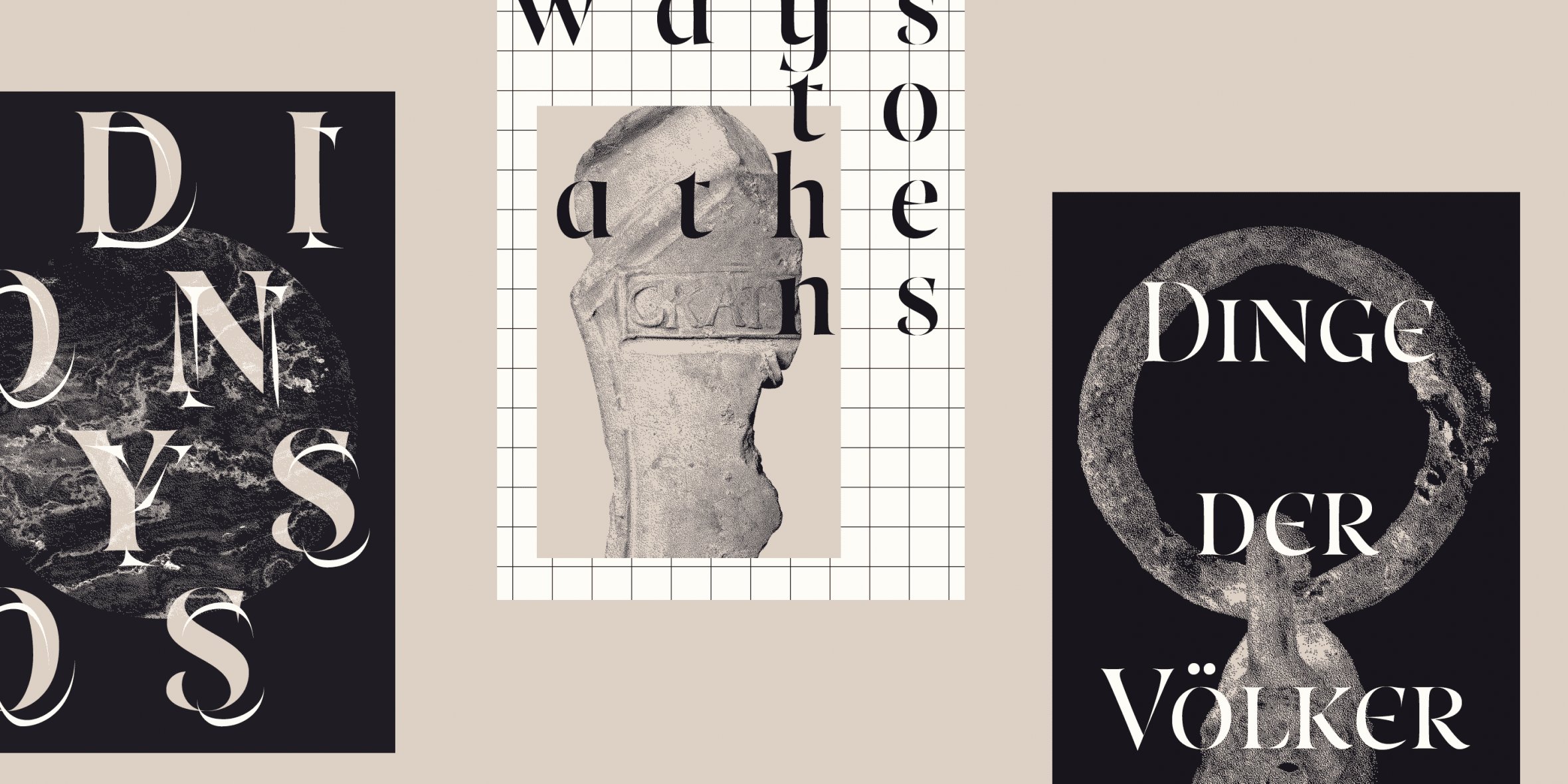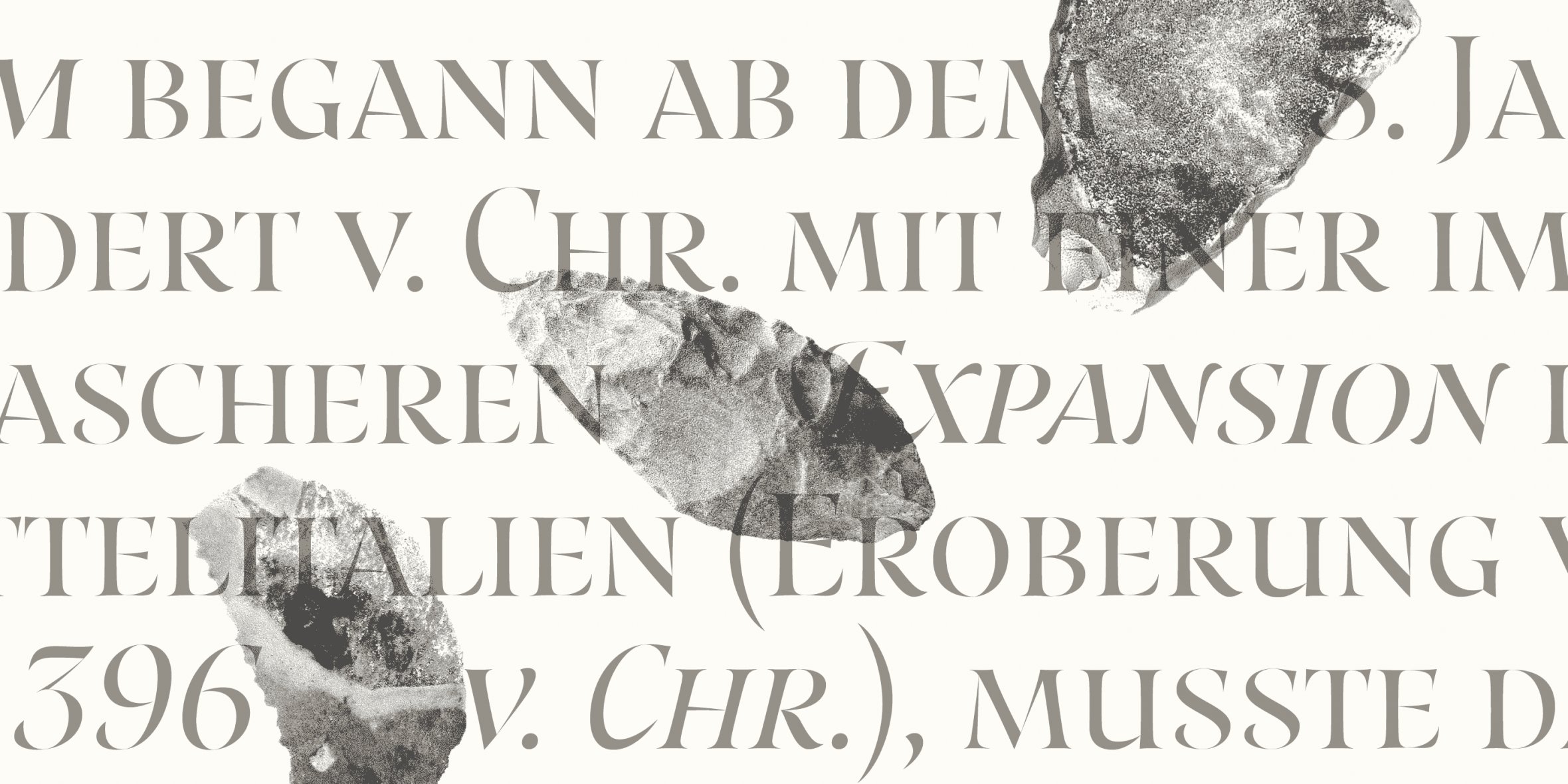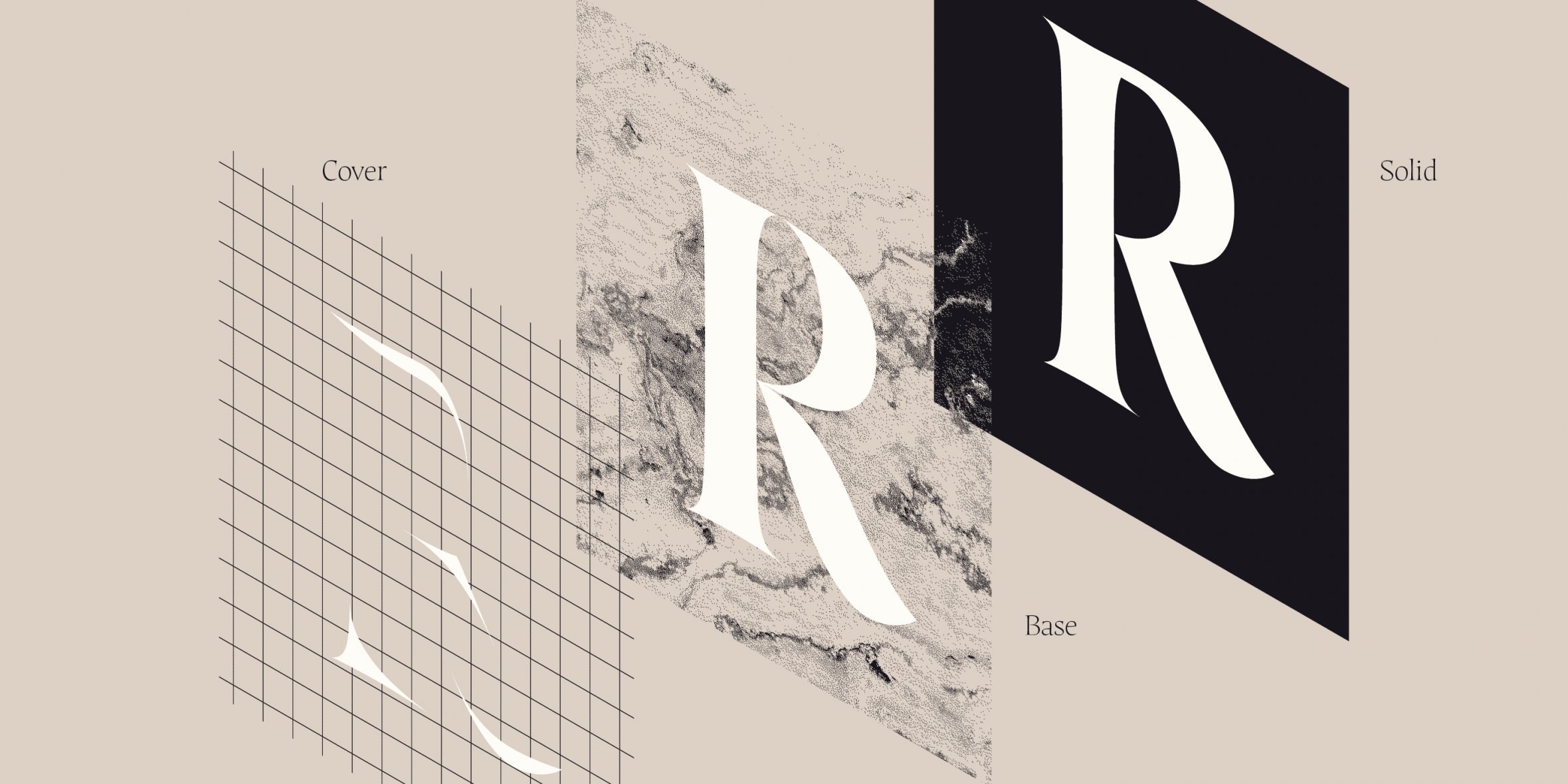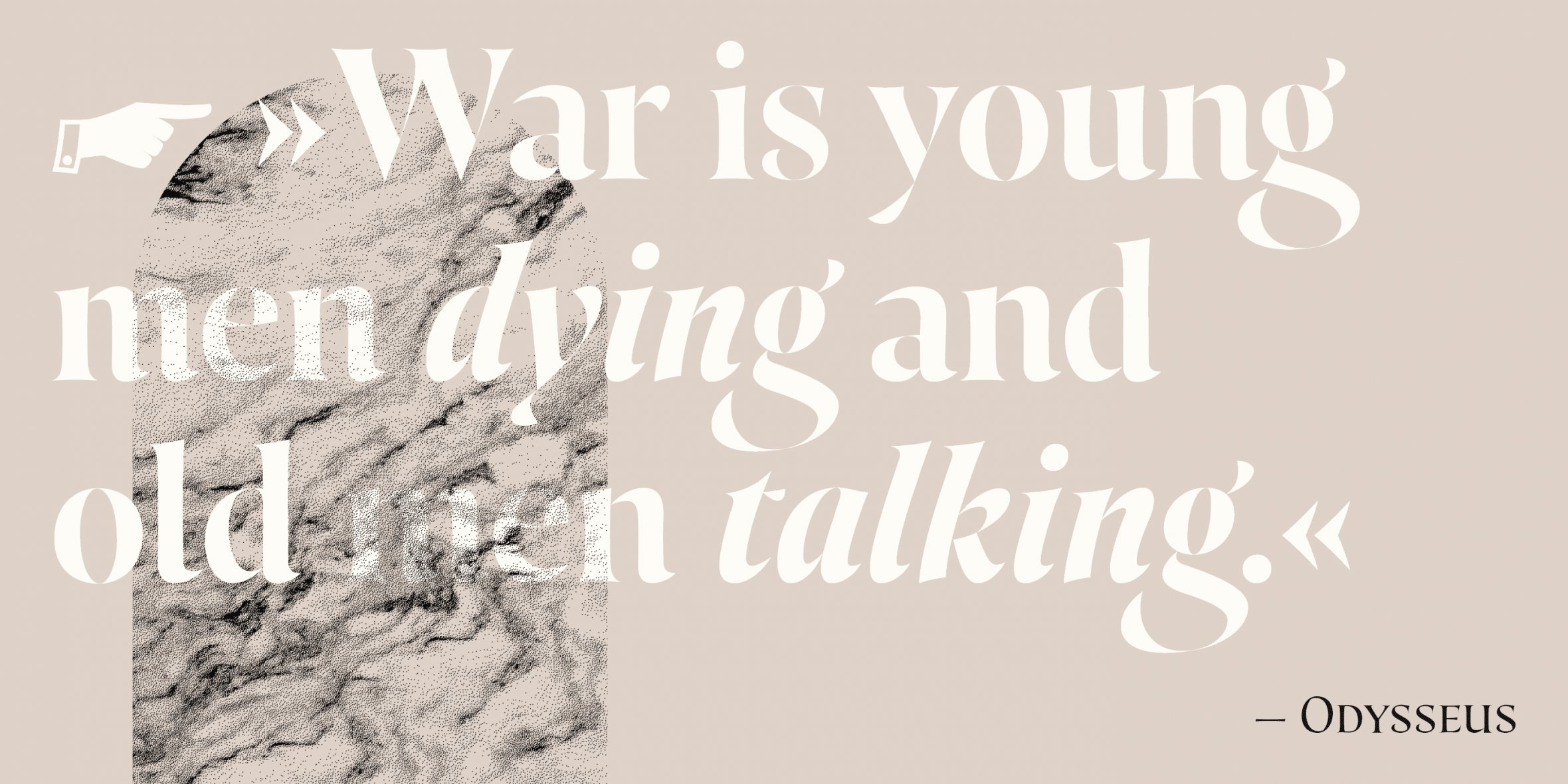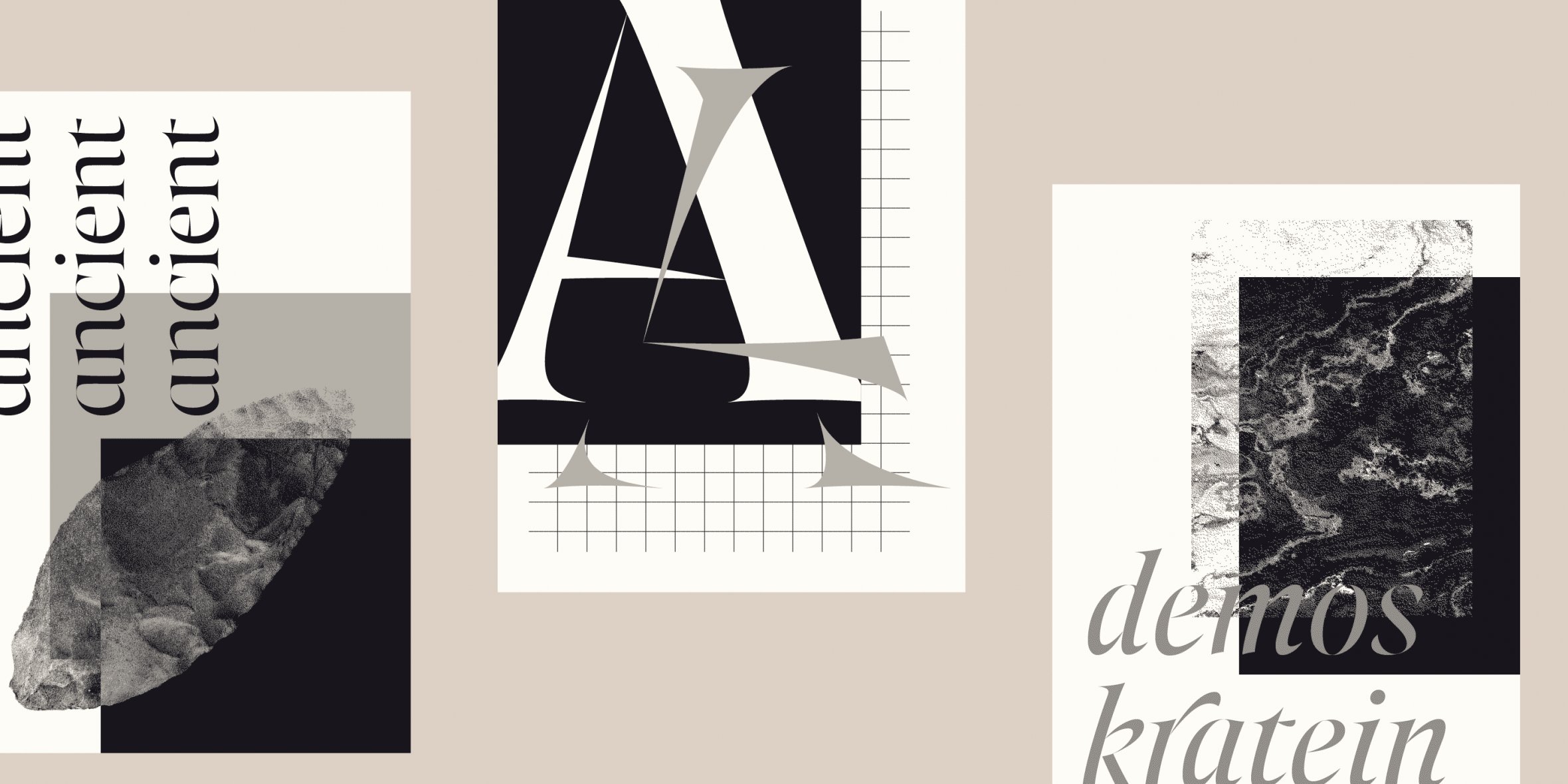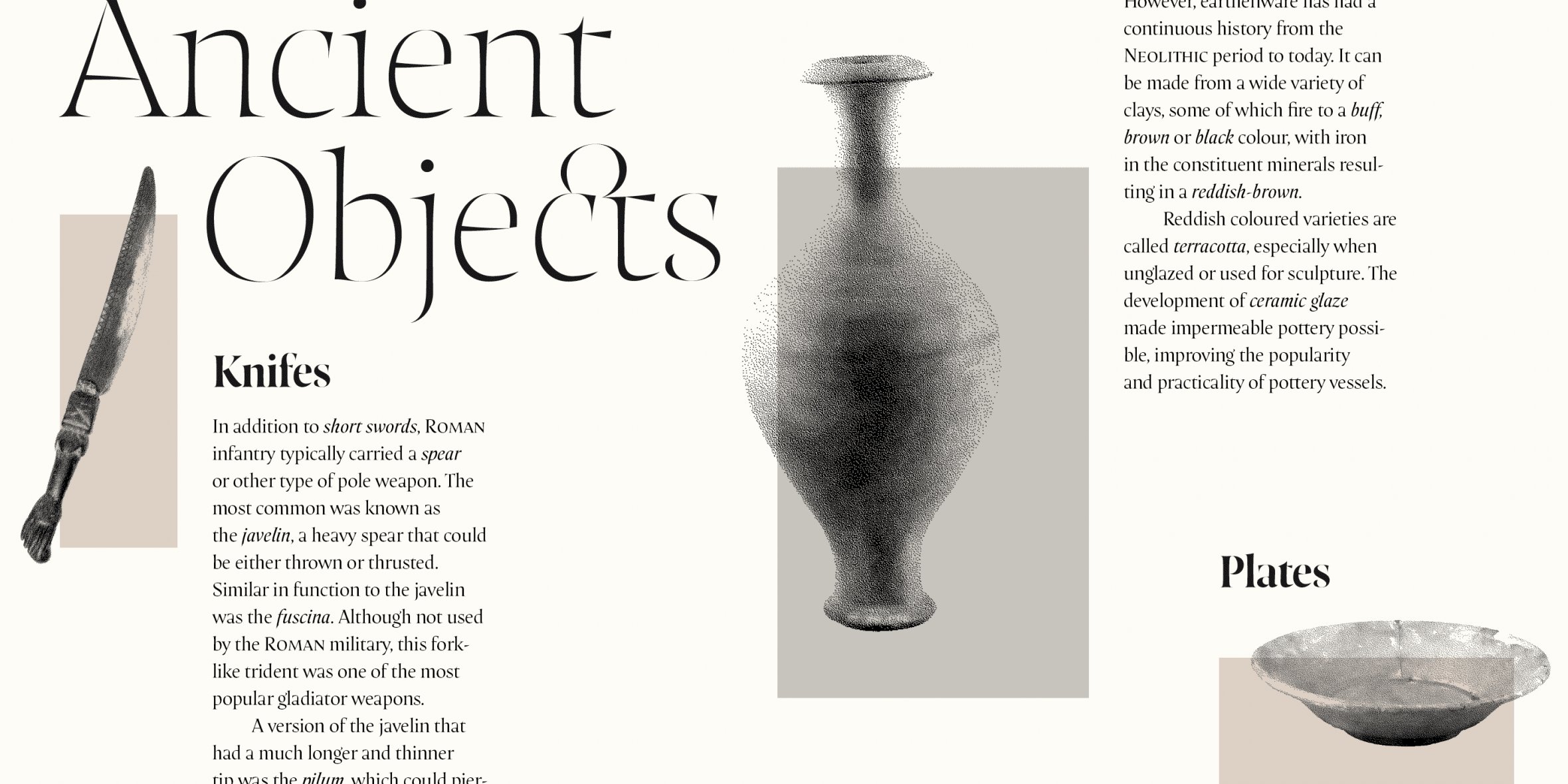
Resonay
Features
2 layers of font are intended for creative use from simple two colors in one text to motion design.
Would you like an really exotic ligature? With prepared shapes for ascenders can easily make your custom ligatures.
Similarly works uppercase ligatures with small caps, but some of them need to be manually lifted to the caps height.
An interesting feature of italics are the dynamically curved stems. Characters “f” and “j” therefore have a tail inspired by blackletter typography.
Initial and terminal forms will give your text a hand-crafted spirit.
Something extra – whole base layer can work independently as a totally contrasted font.